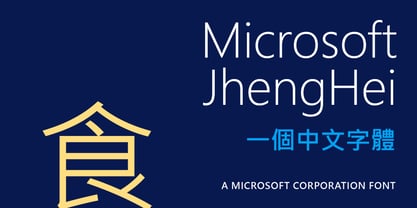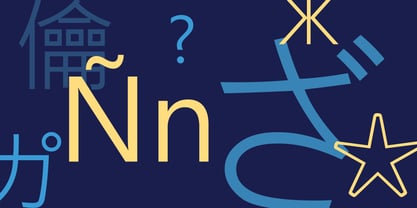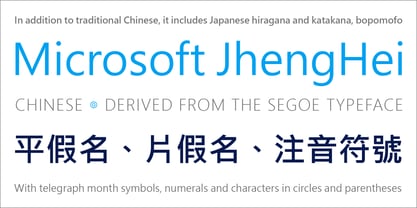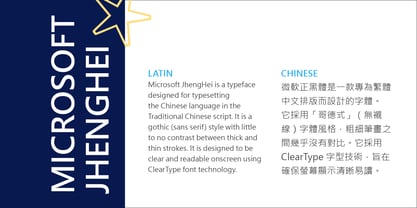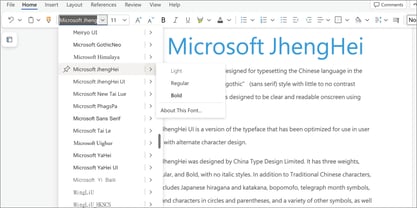
Microsoft JhengHei TC™
by Microsoft Corporation
The Microsoft JhengHei TC Font Family was designed by and published by Microsoft Corporation. Microsoft JhengHei TC contains 3 styles and family package options. More about this family
Microsoft JhengHei TC Light, Regular and Bold were developed by Microsoft and first introduced in Windows 7. These fonts were designed and optimized for rendering in Windows, for use in user interfaces and on screen reading. Each Microsoft JhengHei TC font supports the Traditional Chinese script, and also includes Latin glyphs (an alternative form of Segoe UI).